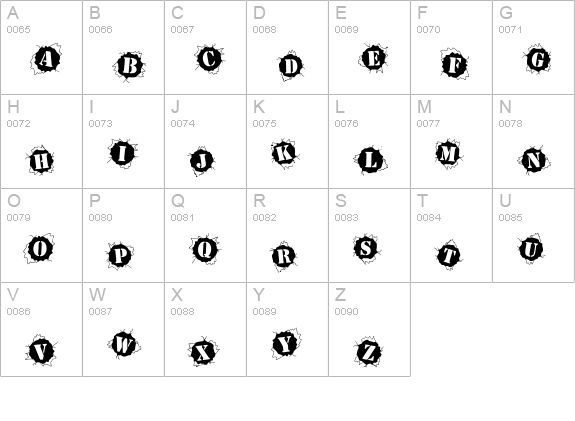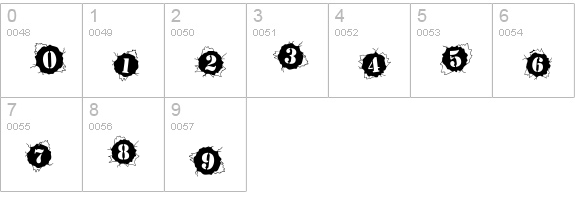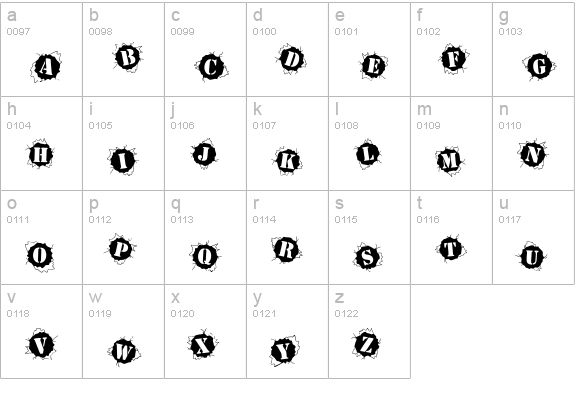
BulletHolz Font Details
BulletHolz is a modern and stylish font that exudes confidence and sophistication. With its sharp angles and sleek lines, this font is perfect for creating eye-catching designs that demand attention. The unique blend of boldness and elegance makes BulletHolz a versatile choice for a wide range of projects, from branding to advertising and everything in between. What makes BulletHolz even more appealing is that it is available for free download at FontsMarket.com. This means you can access this fantastic font without any cost, making it a valuable addition to your design toolkit. Don't miss out on the opportunity to enhance your projects with the striking aesthetic of BulletHolz - download it today and unleash your creativity!